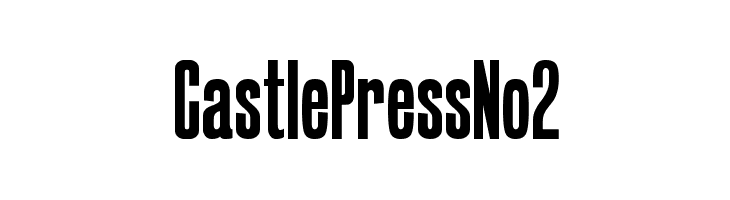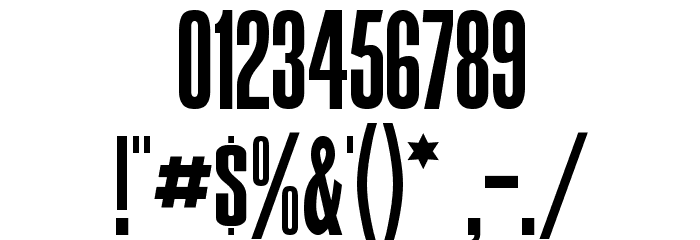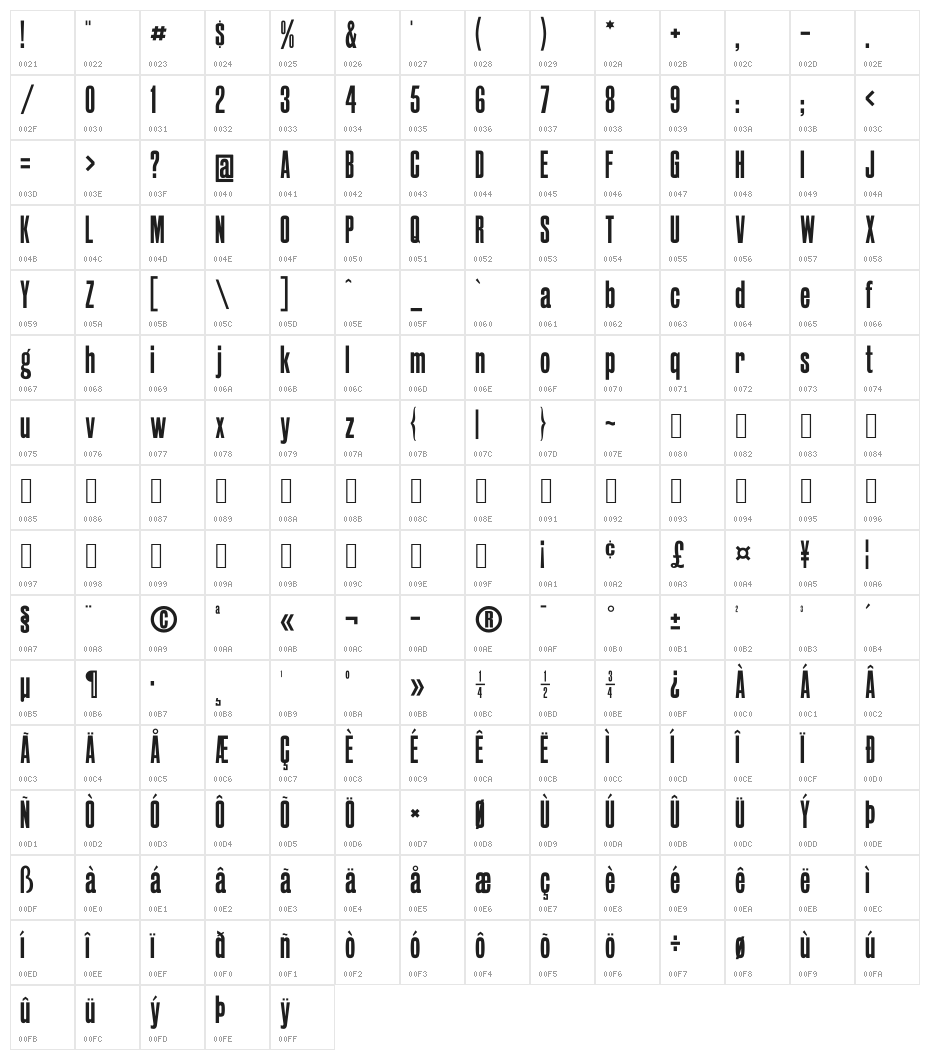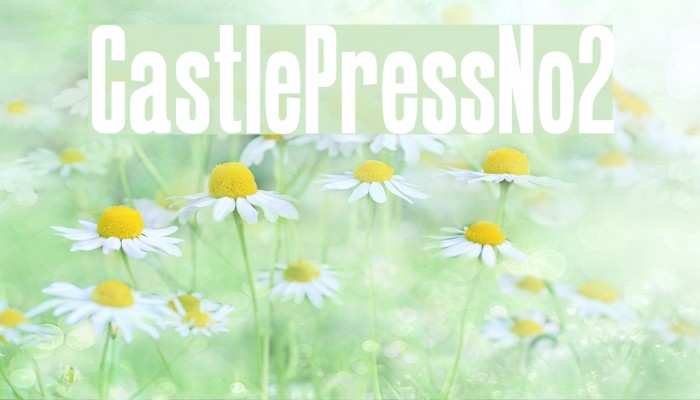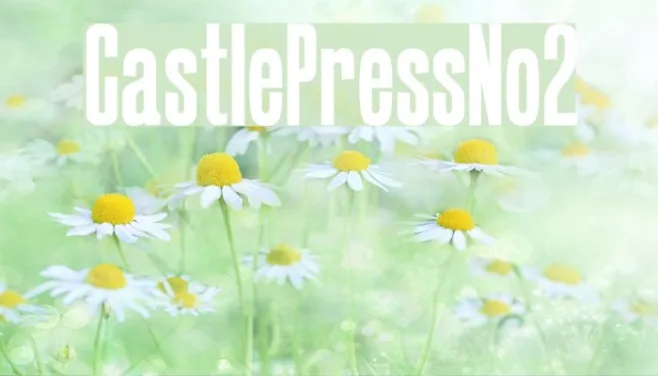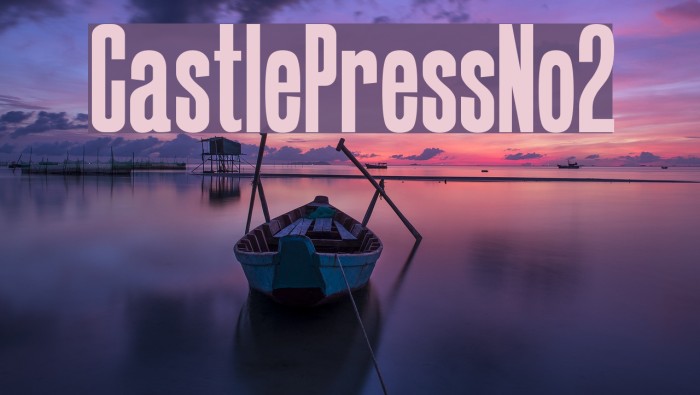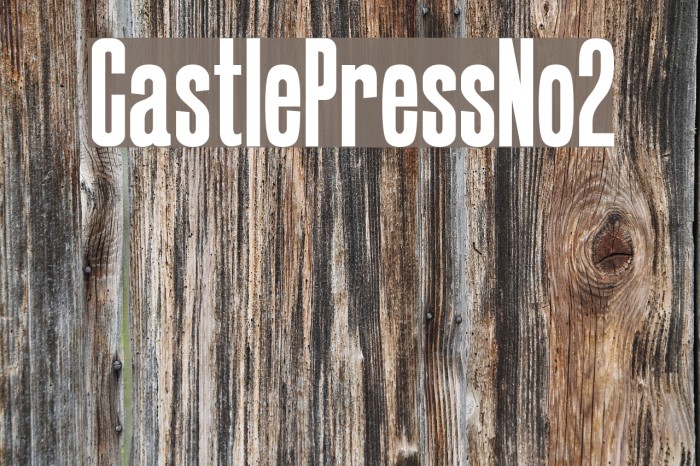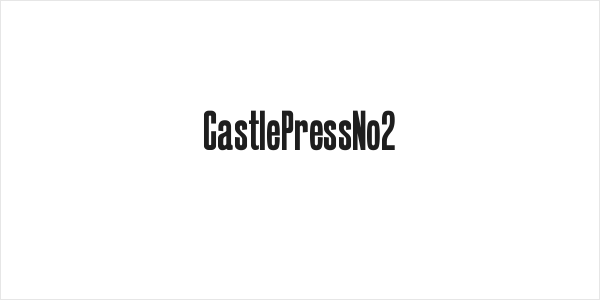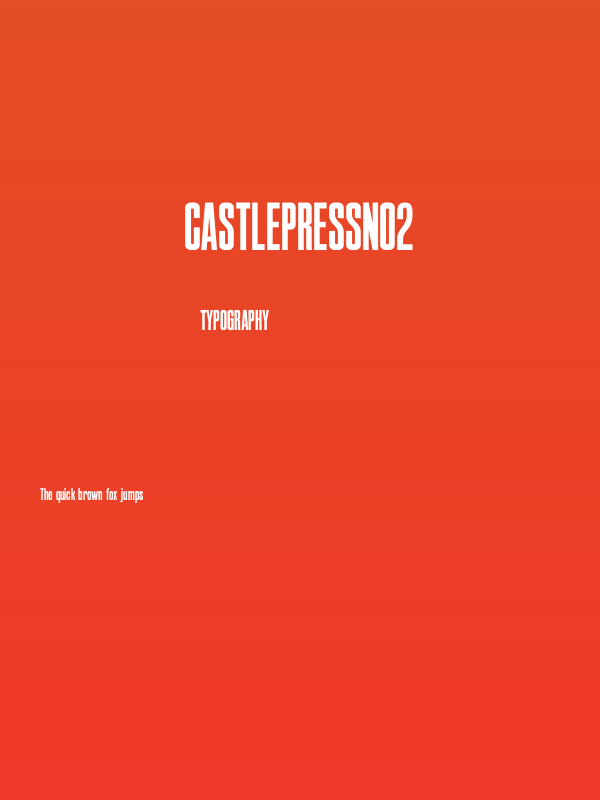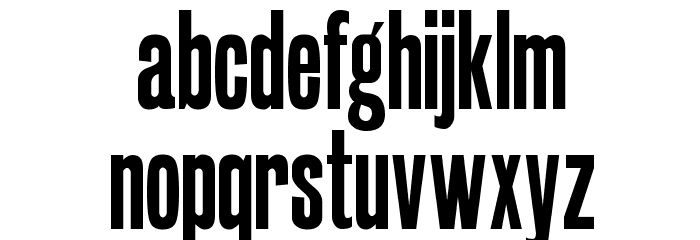
CastlePressNo2 Font
CastlePressNo2 Description
This font features a bold and commanding presence with its tall, narrow letterforms. The uppercase characters are particularly striking, with a strong vertical emphasis that conveys a sense of authority and impact. The lowercase letters maintain this boldness while offering a slightly softer touch, making them versatile for various design applications. The numerals are consistent with the overall style, ensuring readability and uniformity. Special characters are included, enhancing the font's utility for diverse projects. The font's high contrast in stroke thickness adds to its dramatic appearance, making it ideal for attention-grabbing headlines and titles.
| Proposed Projects | Ideal for posters, magazine covers, branding, and any project requiring a strong visual impact. |